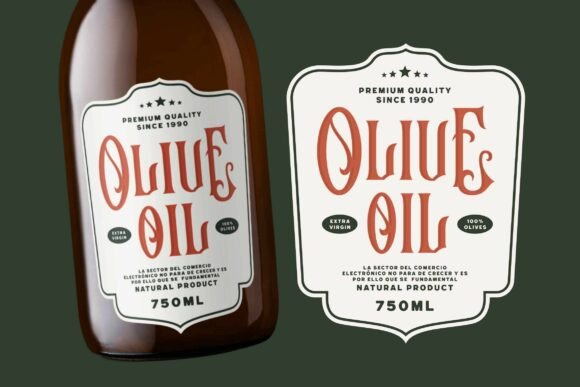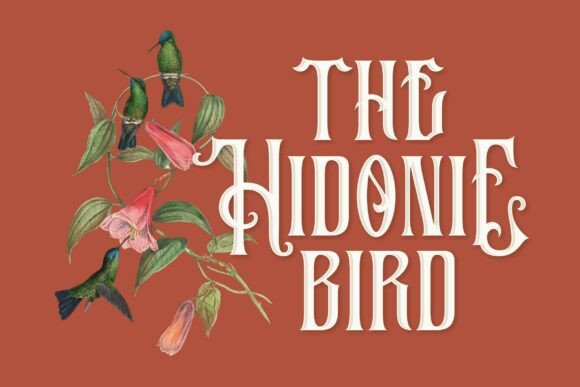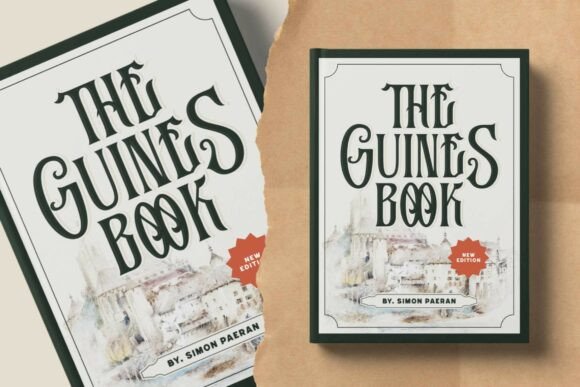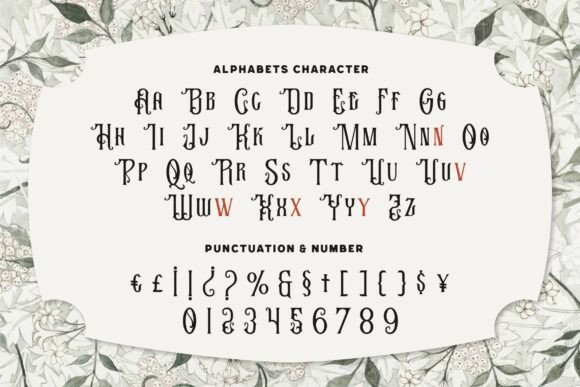
Introduction to Nokeirs Font
Nokeirs is a decorative vintage-style font influenced by Art Nouveau and Gothic, which has unique arches and decorative accents.
Its tall and narrow letterforms are refined with intricate curly and sharp serifs, combined with thick and thin strokes that create a dramatic artistic effect This gives the font an antique and handcrafted feel.